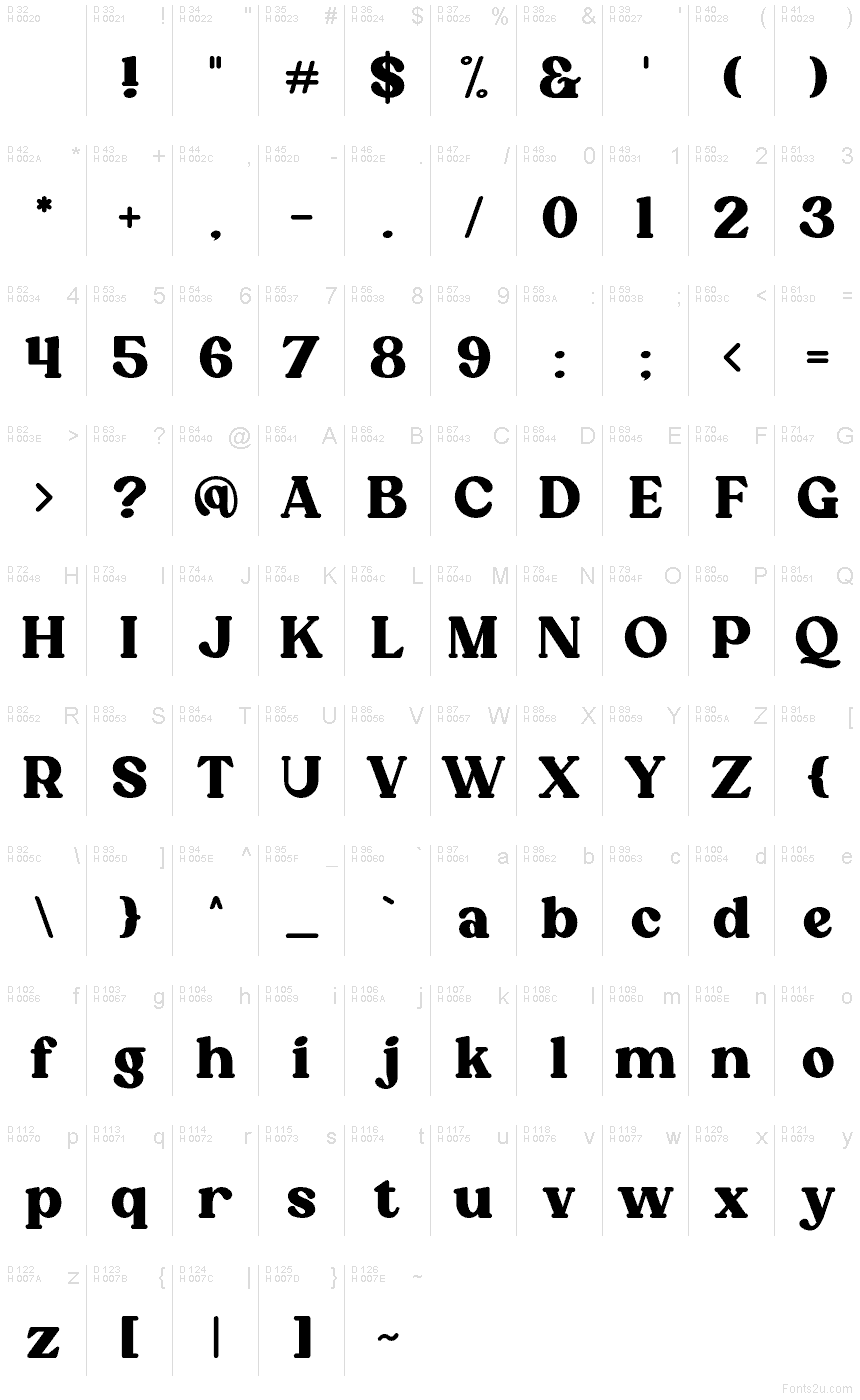
Roffene
Roffene font by Puri Creative is a bold serif font whose sharp strokes and thick shape make each glyph splendidly eye-catching to everyone. A close look at the roundness shows slight curves that also create unique letters in their own way. The stylistic alternates and swashes are more of another touch to leave this font as a versatile typeface.